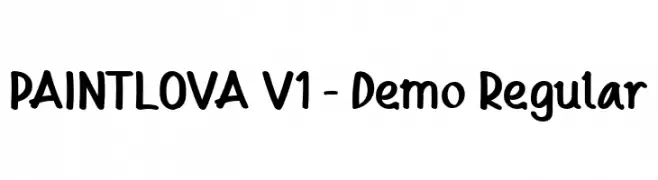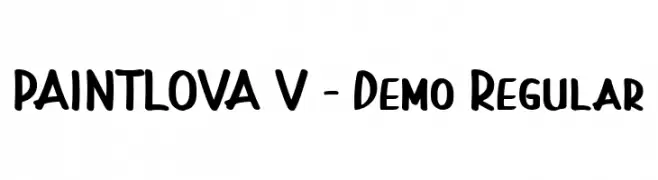
• Blueberry Love
A playful script font with heart accents, perfect for romantic and creative designs.
• PAINTLOVA V1 - Demo Regular
A bold, playful handwritten font with rounded, consistent strokes.
• PAINTLOVA V2 - Demo Regular
A bold, playful font with a hand-drawn, casual style.
• Lovely Ballon
A playful font with characters inside heart-shaped balloons, ideal for festive and romantic themes.
• Hello Lovely - Personal Use
A playful, handwritten font with bold, smooth strokes and a casual, cursive style.
• LOVE full song
A whimsical font with heart motifs integrated into each character, offering a romantic and playful style.
• hello lover
A playful and elegant handwritten font with flowing cursive letterforms.
• lovely dovely
An elegant script font with flowing, cursive strokes and a sophisticated appearance.
• Always Lovely
A playful, handwritten font with smooth, flowing curves and consistent stroke thickness.
• Romantic Lovely
A romantic and elegant script font with flowing, cursive letterforms.